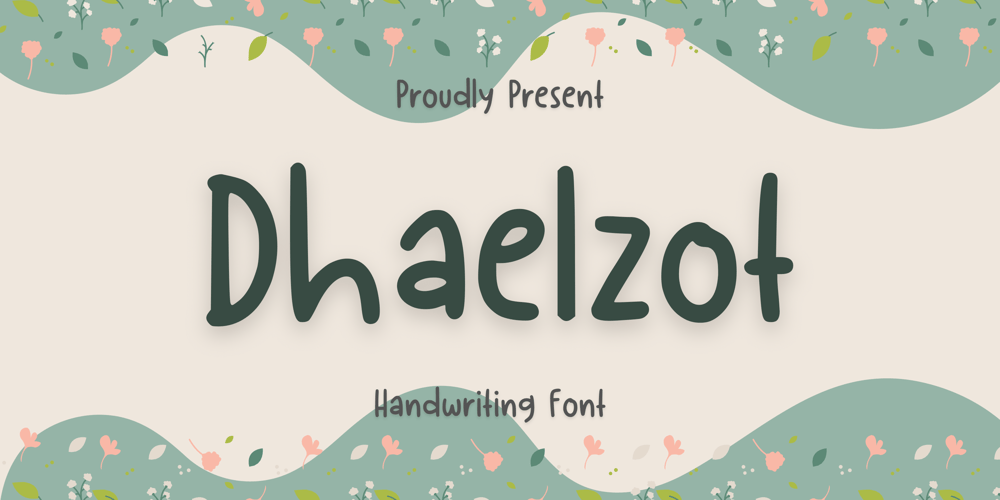
Dhaelzot Font Family was designed by Nur Aiysah Amalia and published by Aisyah. Dhaelzot contains 1 styles and family package options. Dhaelzot is a stylish, modern handwriting font with a relaxed, informal feel. With its unique, flowing letters, Dhaelzot adds a personal touch to any design project, making it perfect for use in greeting cards, invitations, and social media posts. The font is highly legible and easy to read, making it ideal for body text as well.